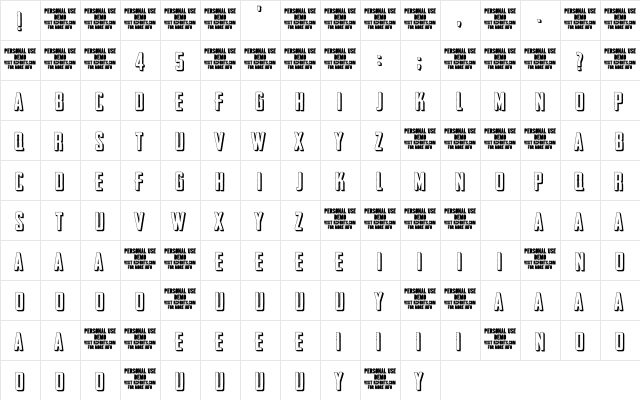
Outliner No. 45 DEMO Regular
Design Context for Outliner No. 45 DEMO Typeface
Outliner No. 45 DEMO brings ornamental detail and strong personality to headlines and identities, where visual impact matters more than quiet functionality.
Font Pairing: Pair with a clean neutral sans-serif for body copy to let Outliner No. 45 DEMO's character lead without overwhelming the composition.
Pro Tip: Treat Outliner No. 45 DEMO as the centrepiece of your typographic hierarchy. One strong heading set in a decorative face can carry an entire layout.